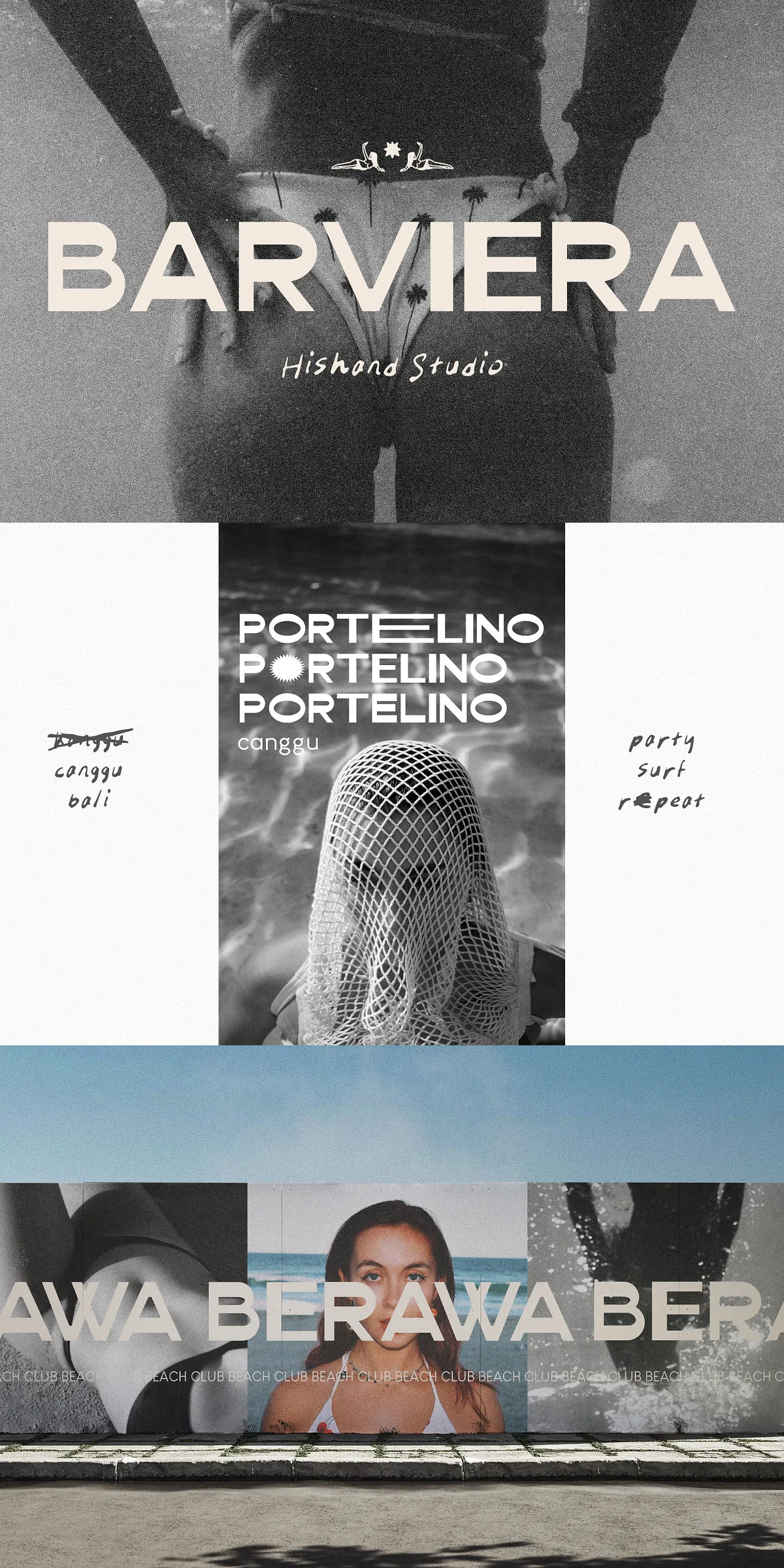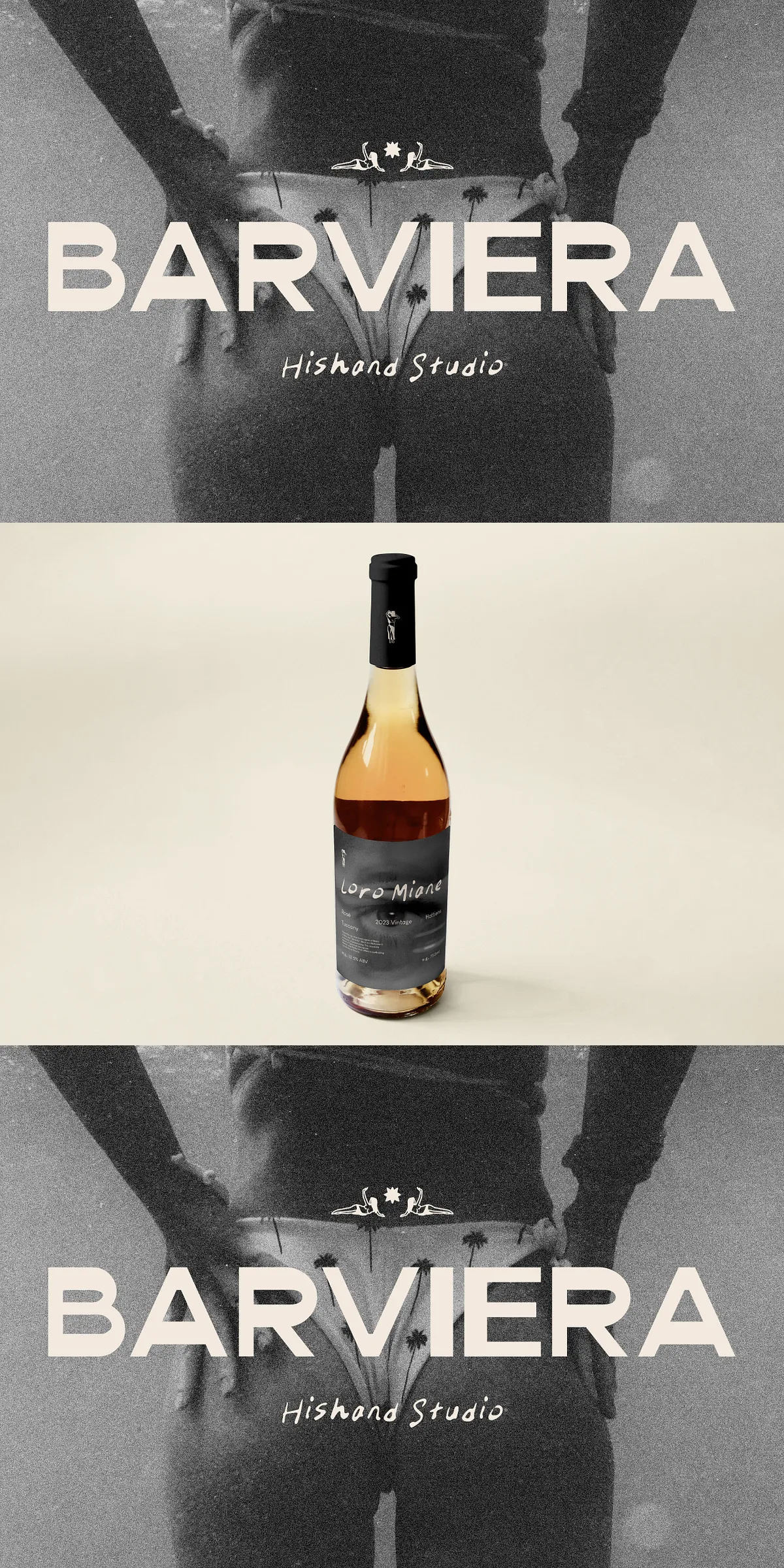
Step into the future of design with Barviera — a powerful, modern display sans-serif font engineered for impact. Built with precision, balanced with flair, and designed for creators who demand both aesthetic strength and functional versatility. Every curve, stroke, and spacing decision was made to deliver a sleek, confident presence that lifts your typography from ordinary to extraordinary.
Effortless Aesthetic Power with Clean Geometric Integrity
Where Modern Minimalism Meets Creative Energy
Barviera doesn’t just look clean — it feels intentional. Its clean, geometric forms create a visual harmony that draws the eye without overwhelming the message. The typeface strikes a rare balance between sharp, confident edges and smooth, flowing curves, giving your text rhythm and movement. Whether you’re crafting a startup logo, designing a poster, or building a lifestyle brand identity, Barviera radiates a cool, contemporary edge that feels polished yet approachable.
Rich Feature Set for Next-Level Typographic Control
Unlock Design Freedom with Advanced Typography Tools
Barviera isn’t just a font — it’s a full creative toolkit. Built for professional-grade design, it includes a comprehensive set of features that empower you to elevate your work:
- Ligatures — Seamlessly connect letters like “fi,” “fl,” and “ff” for refined, fluid reading flow.
- Alternates — Swap out standard glyphs for stylistic variations that add unique personality and visual interest.
- Hand-Written Style Variants — Introduce a touch of authenticity with subtle handwritten flourishes — perfect for personal branding or expressive content.
- Icon Integration — Includes built-in icon support, enabling you to seamlessly embed visual symbols directly into your text (ideal for social media, apps, and UI elements).
- Custom Kerning Pairs — Advanced spacing features ensure optimal letter spacing across all combinations, preventing awkward gaps or crowding.
- Multilingual Support — Full coverage of Latin, Greek, and Cyrillic scripts, plus extended character sets for seamless communication across languages and markets.
High-Performance Typography Designed for Real Projects
Ready for Logos, Posters, Branding, and Beyond
Barviera is engineered to perform under pressure. Use it with confidence in high-impact design projects such as:
- Corporate logos — Build a bold, memorable identity with minimal effort.
- Event posters and flyers — Command attention with clean, high-contrast headlines.
- Lifestyle branding — Reflect modern sophistication in fashion, wellness, and creative services.
- Digital product interfaces — Offer sharp, legible headlines with a premium feel.
- Print and packaging design — Maintain crisp clarity from screen to physical product.
Its balanced weight and clean design ensure readability even at small sizes, while delivering maximum visual presence at larger formats.
Why Barviera Is a Game-Changer for Designers
More Than a Font — It’s a Design Advantage
In an era where fonts are abundant, Barviera stands out by combining functionality with style. It’s not just about looking good — it’s about performing. You get:
- Aesthetic versatility that matches any project.
- Technical precision that ensures consistency across formats.
- Design flexibility that empowers creativity, not limits it.
This is typography built for real-world use — professional, reliable, and ready to elevate your creative work to the next level.